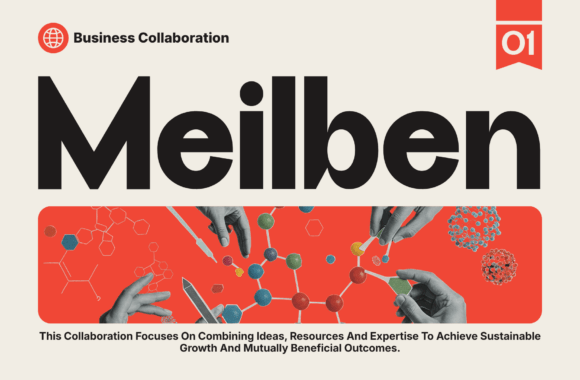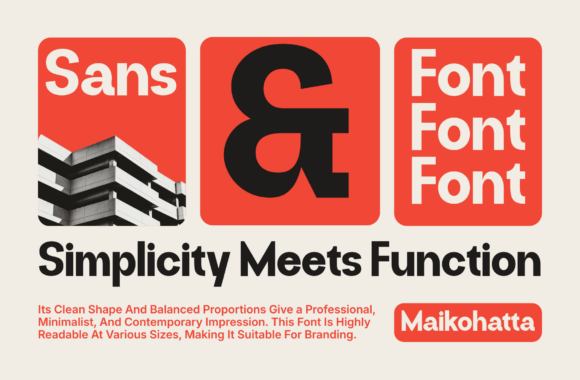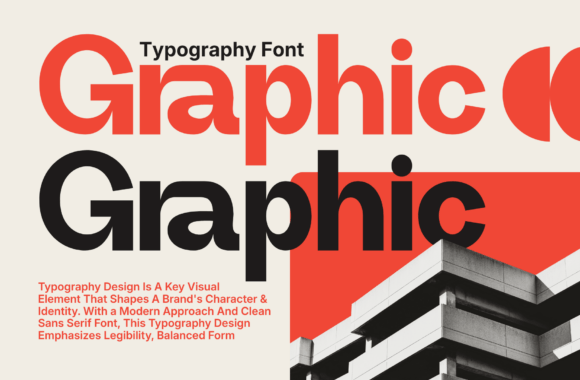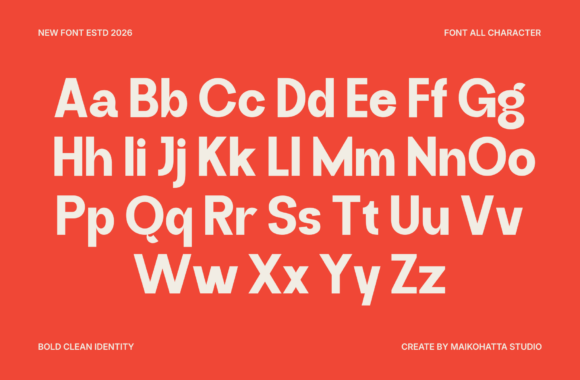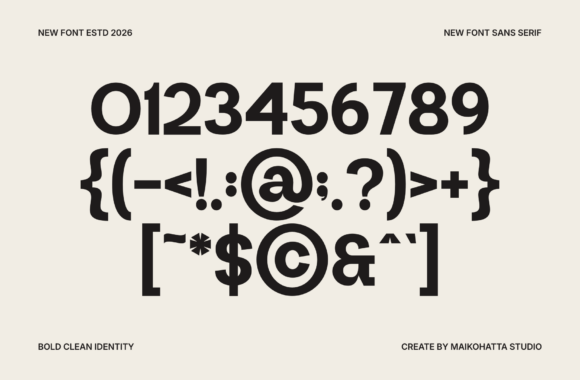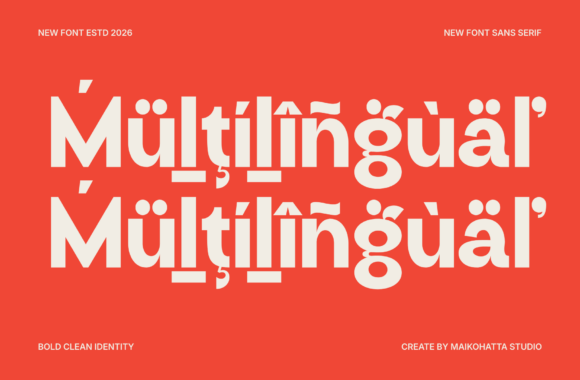
Introduction to Mailna Font
Imagine you’re staring at a blank canvas, eager to bring a creative project to life. Your mind is racing with ideas, but the first step is always the same: choosing the perfect font. It’s here that the Mailna Font comes into play, offering a clean, confident, and highly legible character that elevates your design to the next level.
As a valuable design resource, the Mailna Font is perfect for designers who crave a modern and sleek aesthetic. With its strong letterforms, balanced proportions, and smooth curves, this font is ideal for impactful headlines and visual identities. Whether you’re designing a high-end industrial branding, a tech startup, or an architectural firm, the Mailna Font ensures your work looks polished and professional.
Key Features of Mailna Font
- Perfect for use in logos, branding materials, and other creative projects where a distinctive font is required.
Honest Review: Mailna Font
I recently stumbled upon the Mailna Font and I’m excited to share my thoughts on this design resource. Overall, I was pleasantly surprised by the quality and versatility of this font.
- Clean and modern aesthetic, suitable for a wide range of design applications
- ⚠️ Limited language support, which may be a concern for designers working on multilingual projects
- ⚠️ Not as extensive a character set as some other fonts, which may limit its use in certain contexts
Overall, I’m impressed with the Mailna Font’s potential as a design resource. While it may not be perfect, its high-quality design and free download option make it a great choice for creative projects. With a bit more development, I think this font could become a go-to option for designers everywhere.
The Mailna Font is commonly used in various design projects such as:
- Poster design